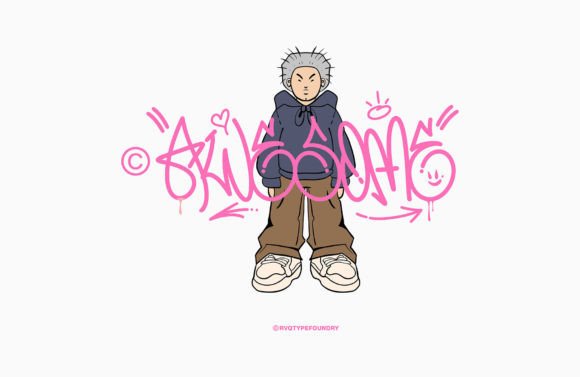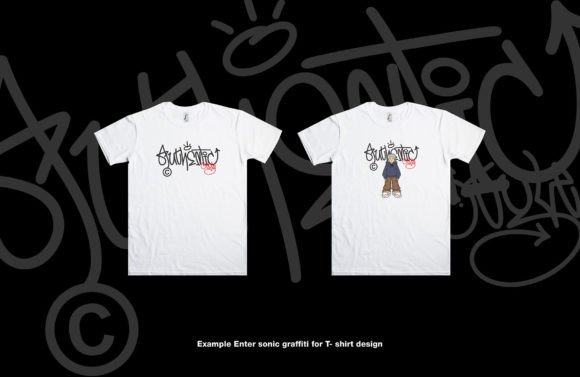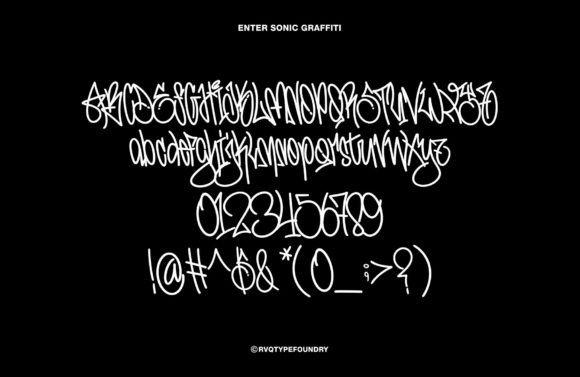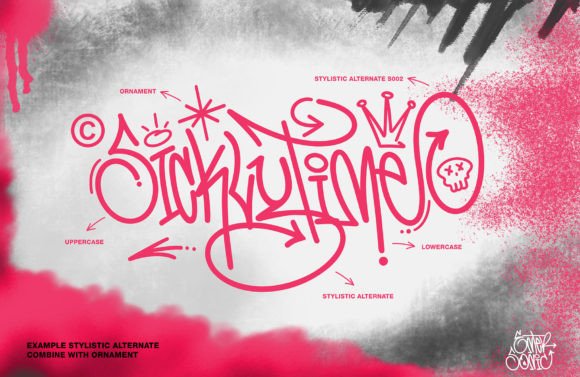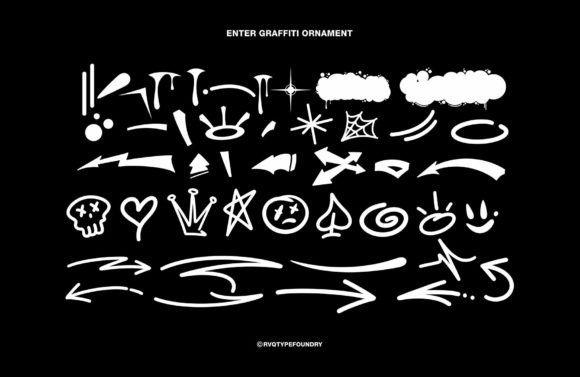
Introduction to Enter Sonic Graffiti Font
Have you ever stared at a blank canvas, your mind racing with ideas, but struggling to find the perfect font to bring your creative project to life? That’s where the Enter Sonic Graffiti Font comes in – a gorgeous and bold handwritten font that’s sure to add a stylish touch to your headlines and logotype projects.
As designers, we’re always on the lookout for high-quality fonts that can elevate our designs and make them stand out. And with the Enter Sonic Graffiti Font, you can achieve just that. This font reads as strong, confident, and dynamic, making it the perfect addition to any creative project. Plus, with its transparent background, you can easily layer it over any design element, giving you complete creative control.
Enter Sonic Graffiti Font
- High-quality, unique graffiti font suitable for creative projects and designs.
- Designed to be highly legible and versatile, making it an excellent design resource for creative projects, posters, and signage.
Honest Review: Enter Sonic Graffiti Font
I recently stumbled upon the Enter Sonic Graffiti Font and was excited to give it a try. As a designer, I’m always on the lookout for high-quality design resources that can elevate my creative projects.
Here’s what I like about this font: ✨
- The font has a transparent background, which makes it easy to use in various design applications.
- The graffiti-inspired design is perfect for creating eye-catching graphics and illustrations.
- The font is highly customizable, allowing me to experiment with different styles and effects.
However, I did encounter some limitations: ⚠️
- The font may not be suitable for professional or formal designs, as it has a more playful and casual vibe.
- The font’s size and style may not be consistent across all design applications.
Overall, I’m impressed with the Enter Sonic Graffiti Font. It’s a great addition to my design resource library, and I’m excited to see how I can incorporate it into my future creative projects.
Enter Sonic Graffiti Font is commonly used in creative projects such as:
- Illustrations and designs
To get the most out of Enter Sonic Graffiti Font, try experimenting with different font sizes, colors, and styles. Combine it with other design elements, such as images and shapes, to create a visually appealing design. This high quality font is perfect for adding a touch of creativity and edginess to